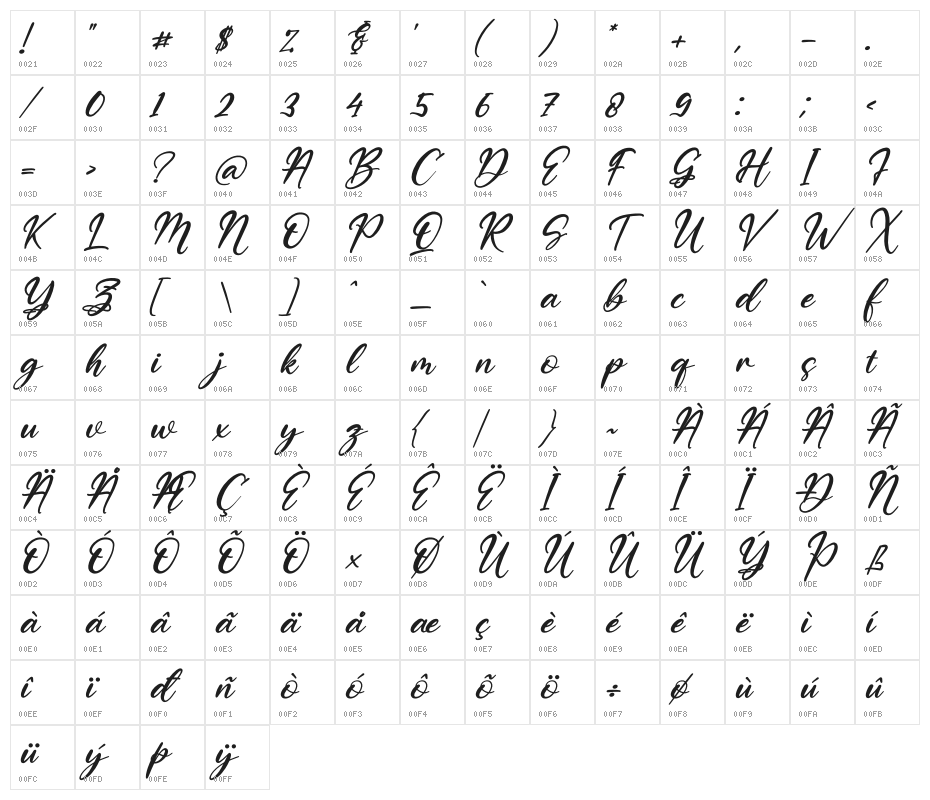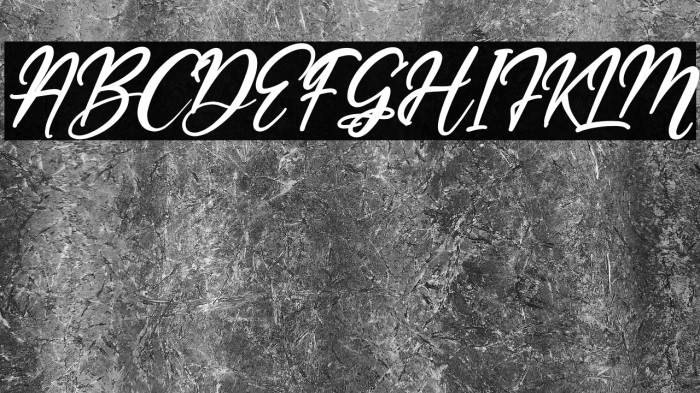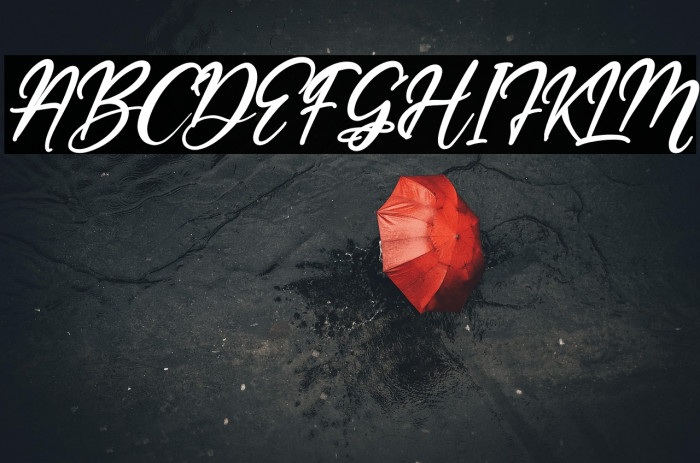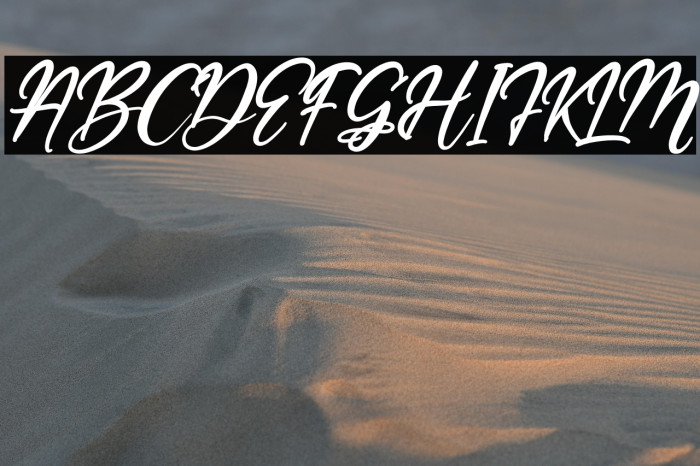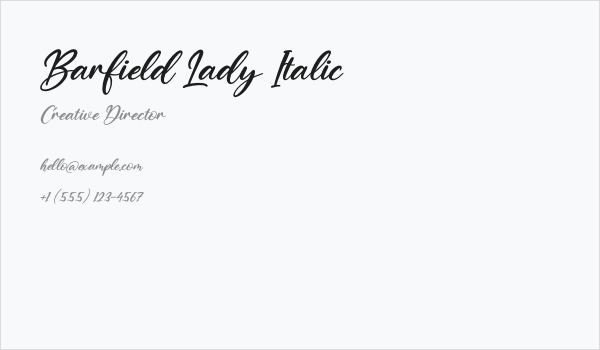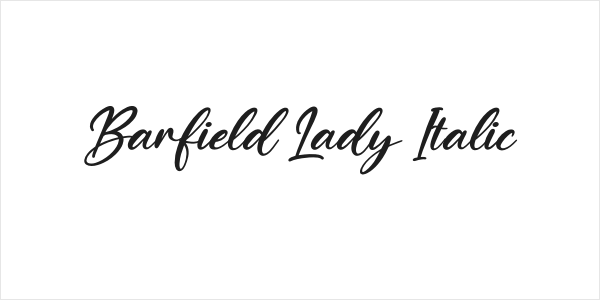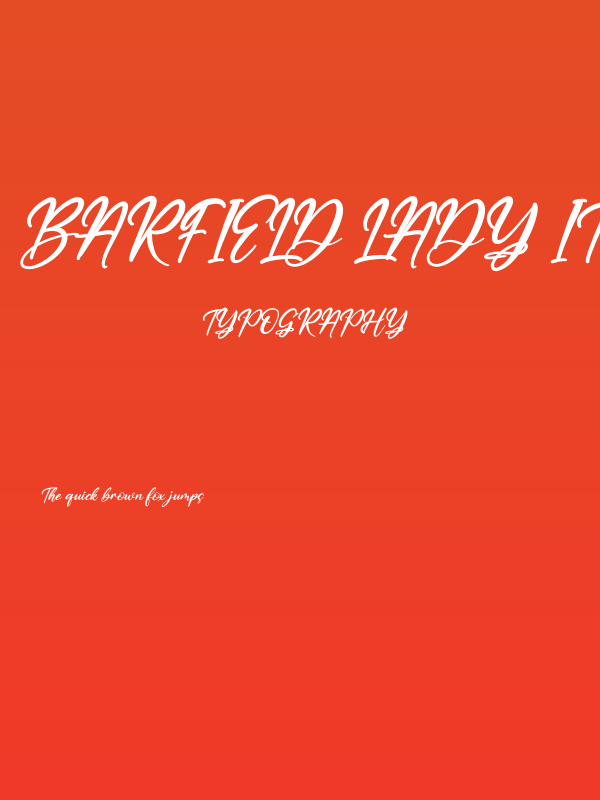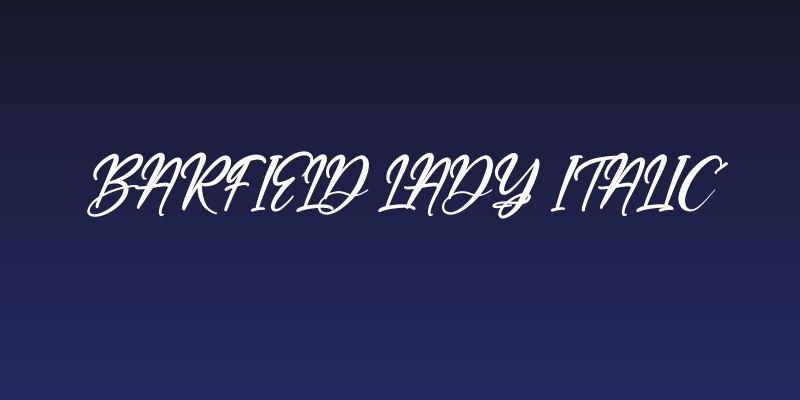
Barfield Lady Italic Font
Barfield Lady Italic Description
This font exudes a sophisticated and elegant script style, characterized by its flowing, cursive letterforms. The uppercase letters are bold and expressive, with intricate loops and swashes that add a touch of flair. The lowercase letters maintain a consistent rhythm, with smooth connections between characters, enhancing readability. The numerals are distinct and stylish, complementing the overall aesthetic. Special characters are thoughtfully designed, maintaining the font's cohesive look. This font is ideal for projects that require a touch of elegance and personality.